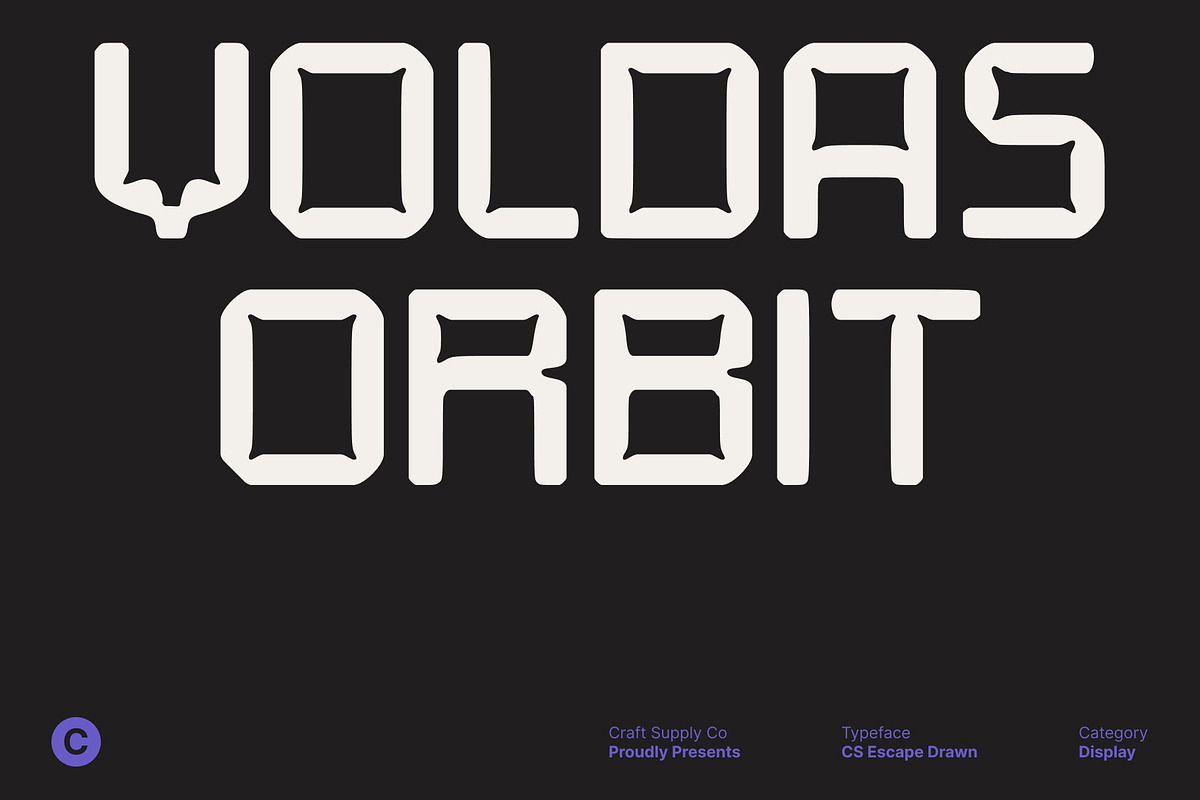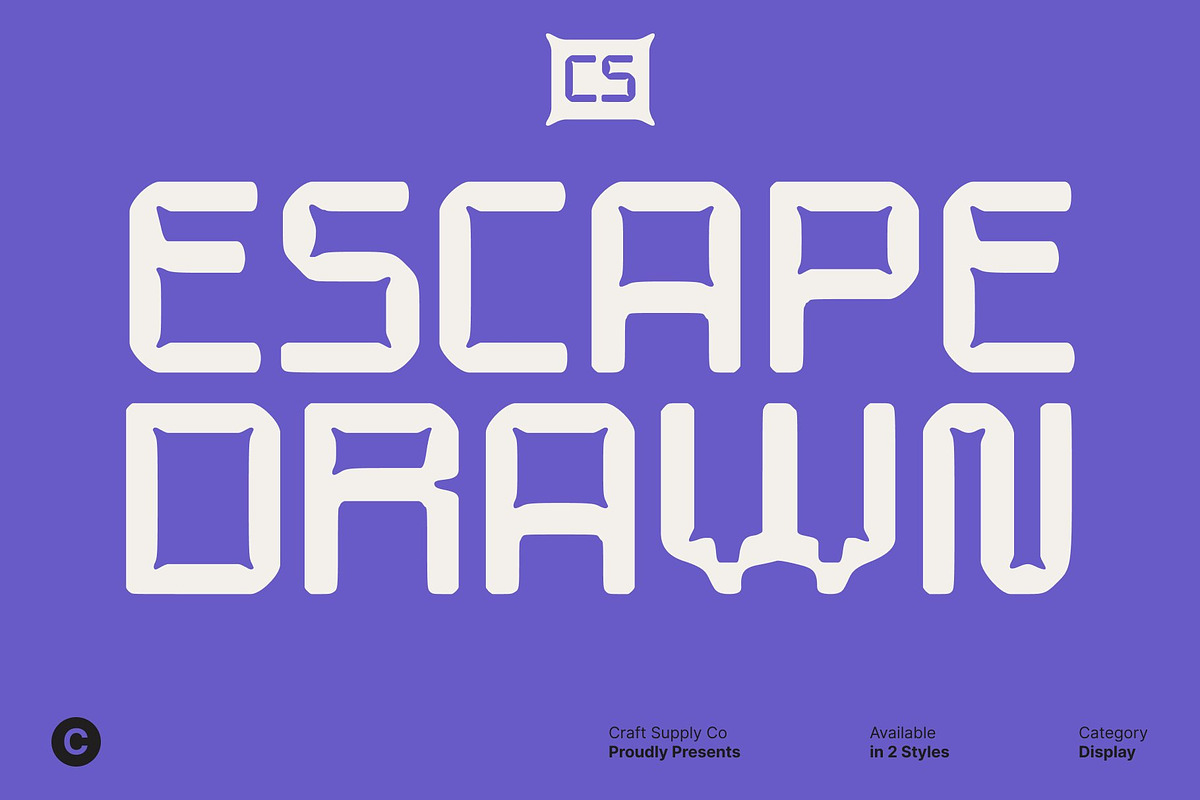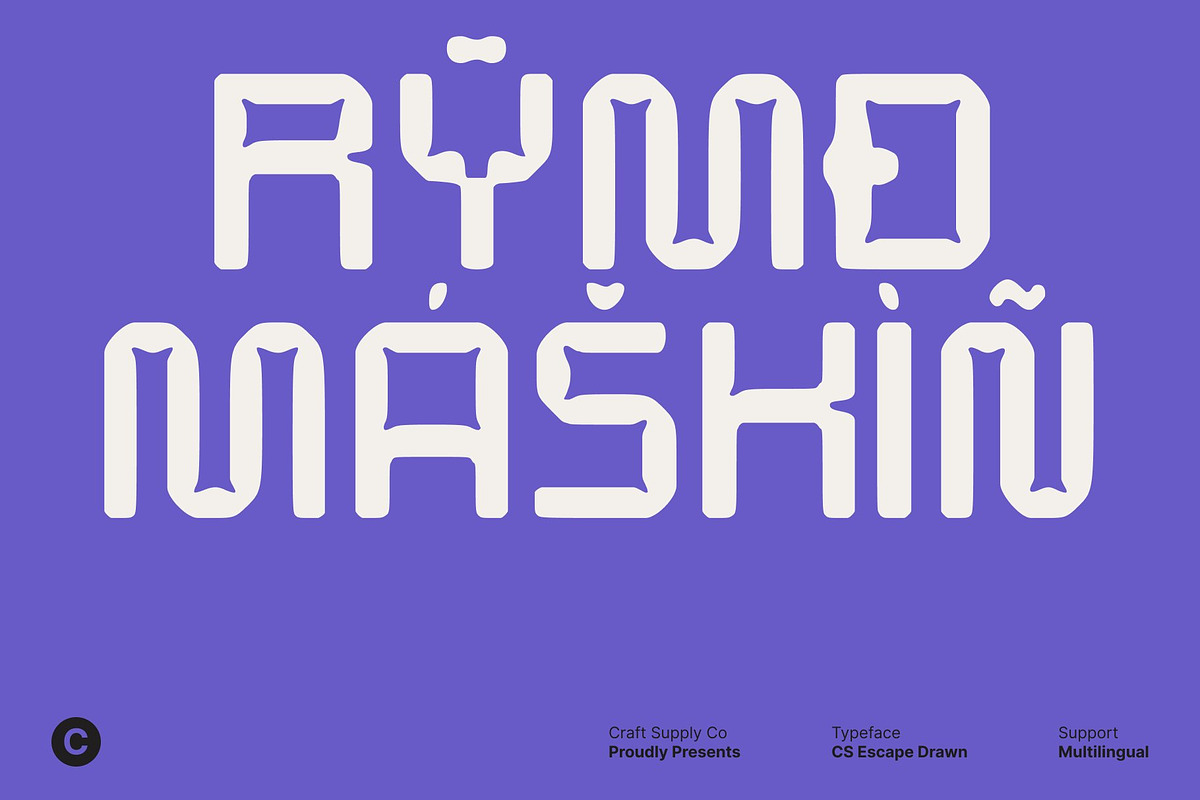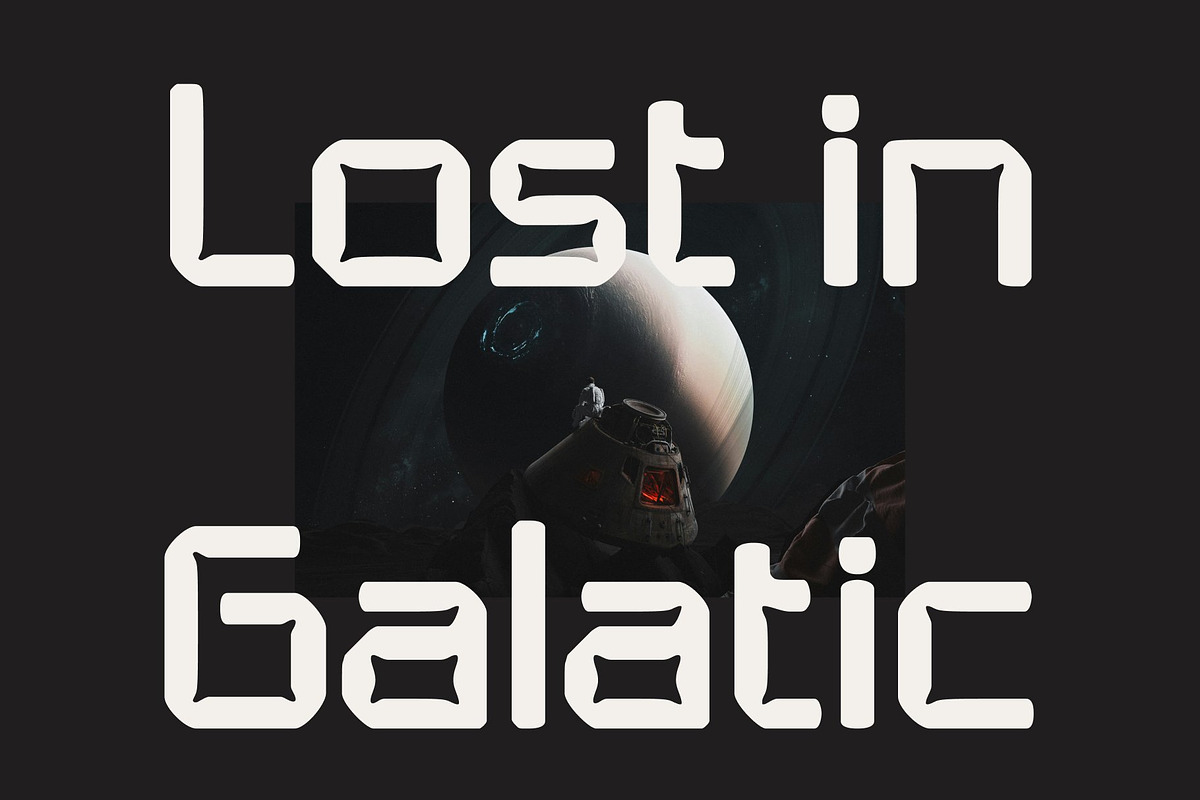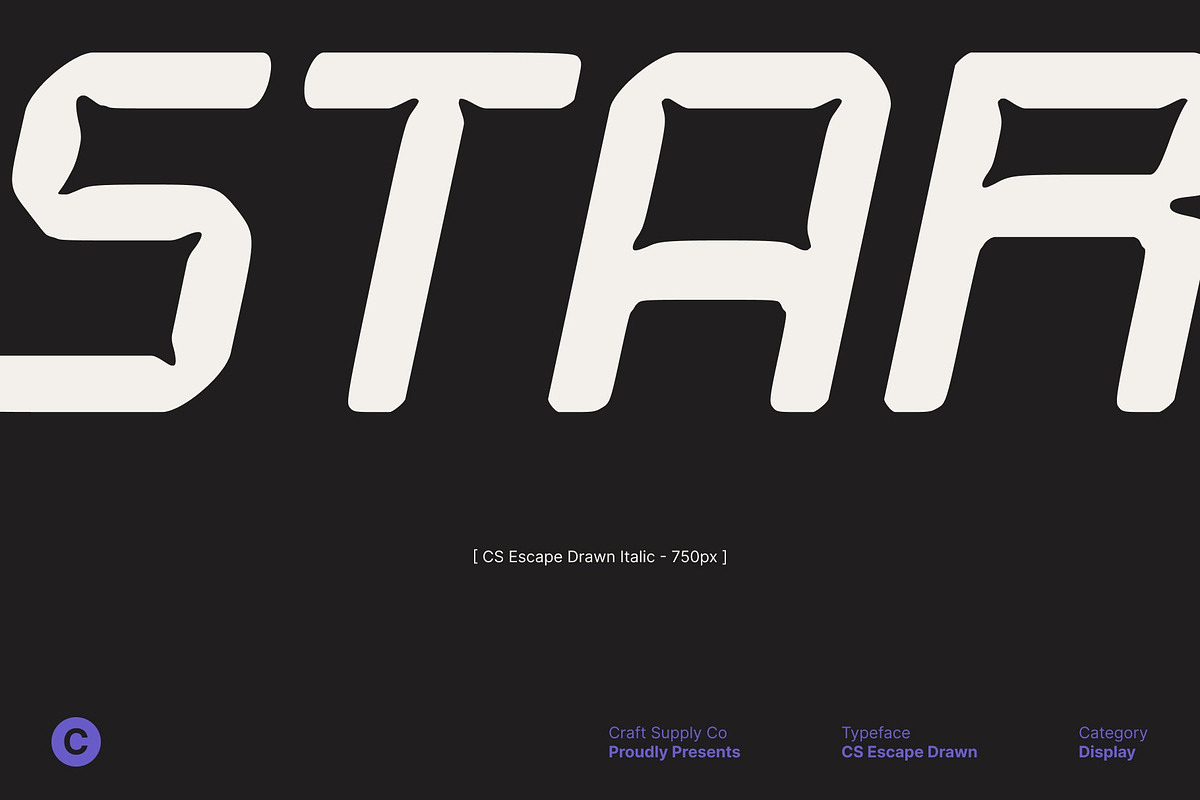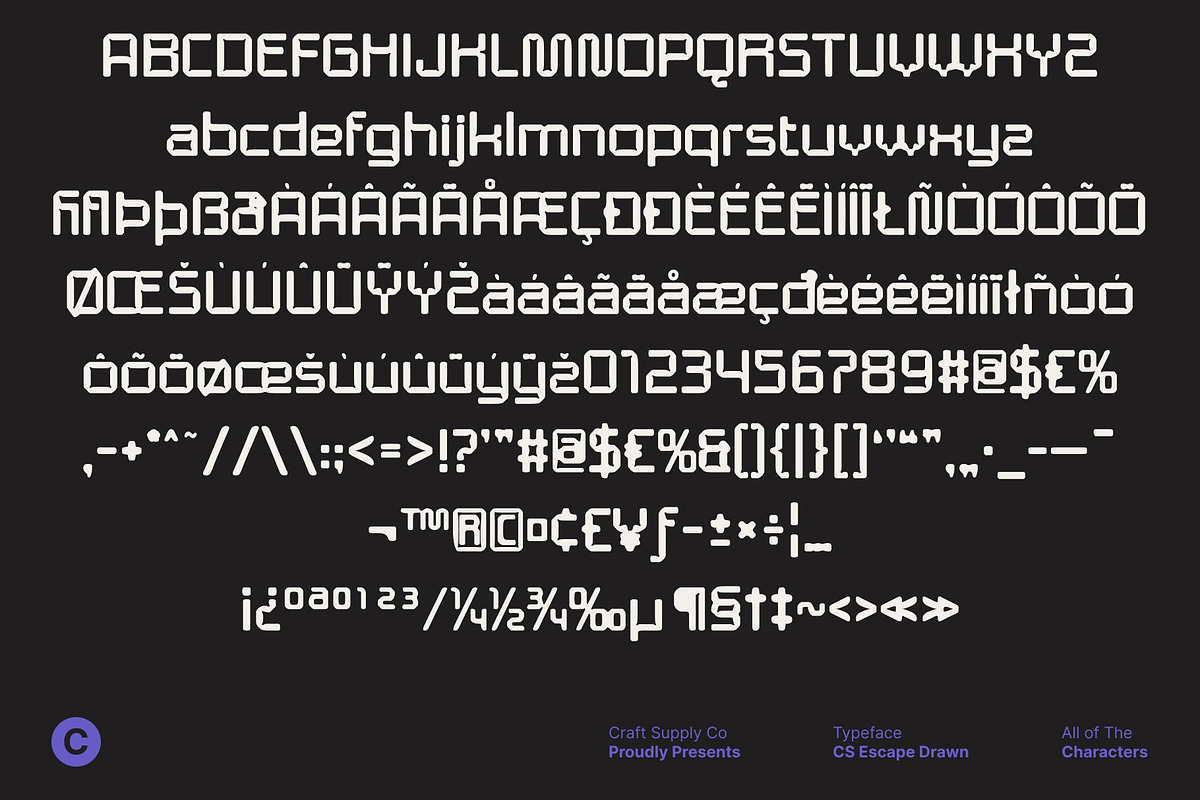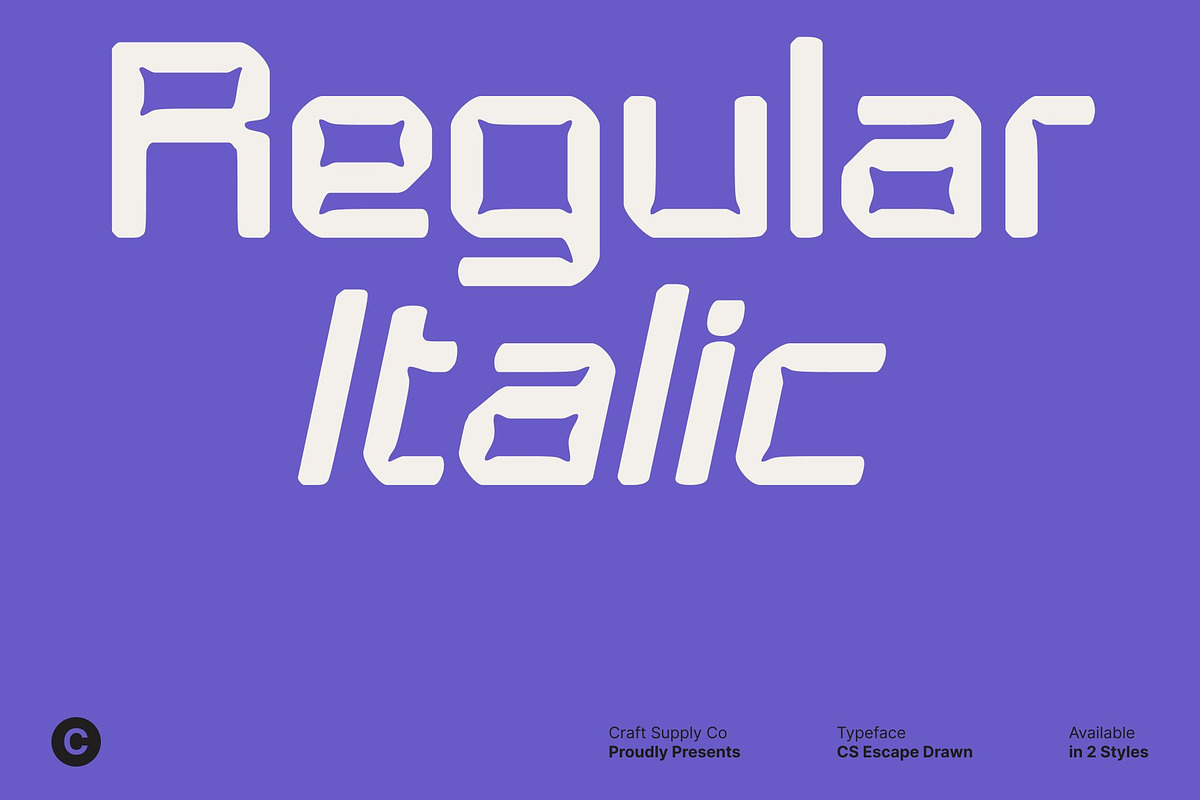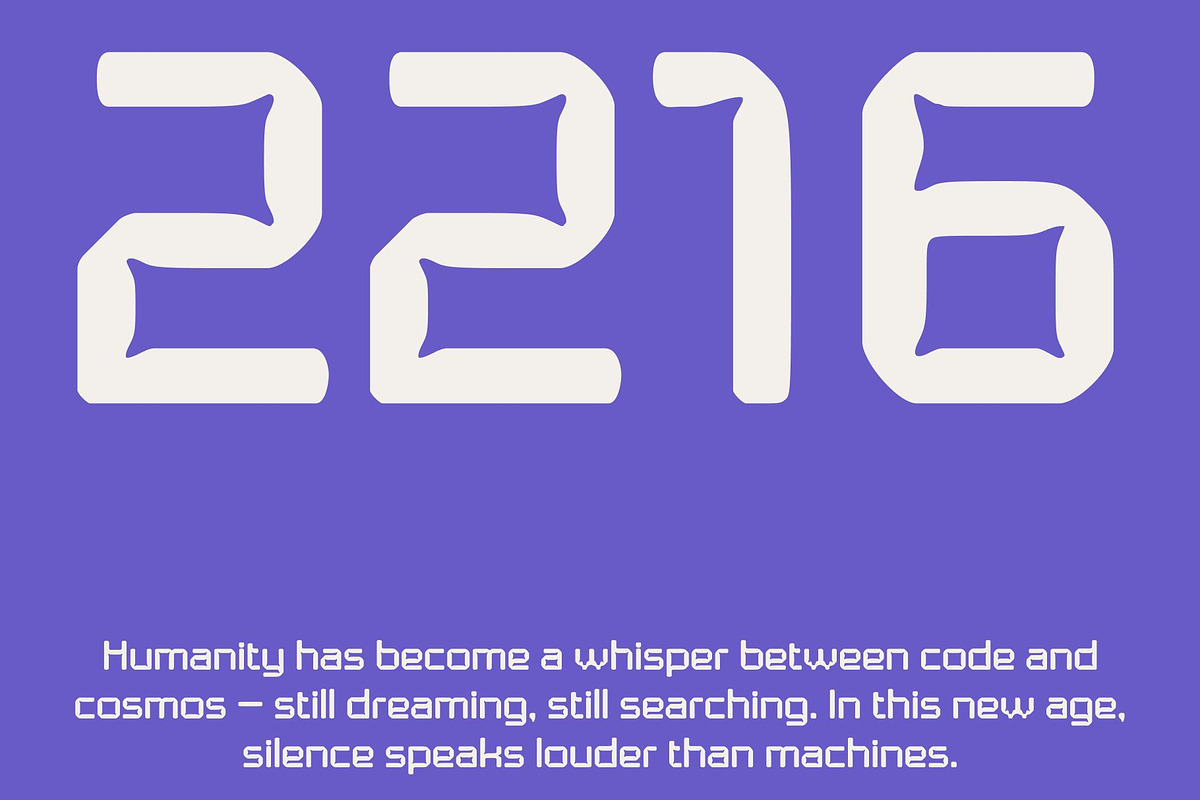
CS Escape Drawn
CS Escape Drawn – Modern Serif with Experimental Inktrap Flair Experimental Sans Serif Design with Modern Edge This is a modern sans serif font crafted with an experimental spirit, aesthetics with expressive character. Its refined serif structure delivers sophistication, while unique design twists give it a fresh, forward-thinking personality. Perfect for designers seeking a typeface that feels both stylish and daring, this font introduces a new balance of artistry and functionality. Inktrap Detailing for Precision and Style Featuring clean yet distinctive inktrap detailing, this font enhances clarity while adding visual interest to each letterform. These subtle cuts create a crisp, functional look, preventing heaviness at small sizes and adding boldness at larger scales. Drawn Texture for Authentic, Artistic Appeal A soft drawn texture enriches the entire font, giving it a warm, handmade touch that stands out from standard serif designs. This textured finish adds nuance, personality, and tactile charm, making every character feel more expressive and memorable. In branding, posters, or creative editorial spreads, this texture adds a layer of artistic depth that invites visual engagement. Perfect for Editorials, Branding, and Modern Displays This font excels across a wide range of design applications, from contemporary branding systems to trend forward editorial titles and poster layouts. Its mix of elegance, structure, and experimentation allows it to adapt beautifully to modern design needs. * Download Type Speciment: * --- What you get : - CS Escape Drawn Regular - CS Escape Drawn Italic Features : - Uppercase and lowercase characters - Numerals and Punctuation (OpenType Standard) - Accents (Supports Multilingual Characters) - PUA Encoding --- You can use this typeface without needing any specialized software.* --- If you have any inquiries or need assistance, please feel free to contact us. We appreciate your support in enhancing your creative projects! Best regards, Craft Supply Co.